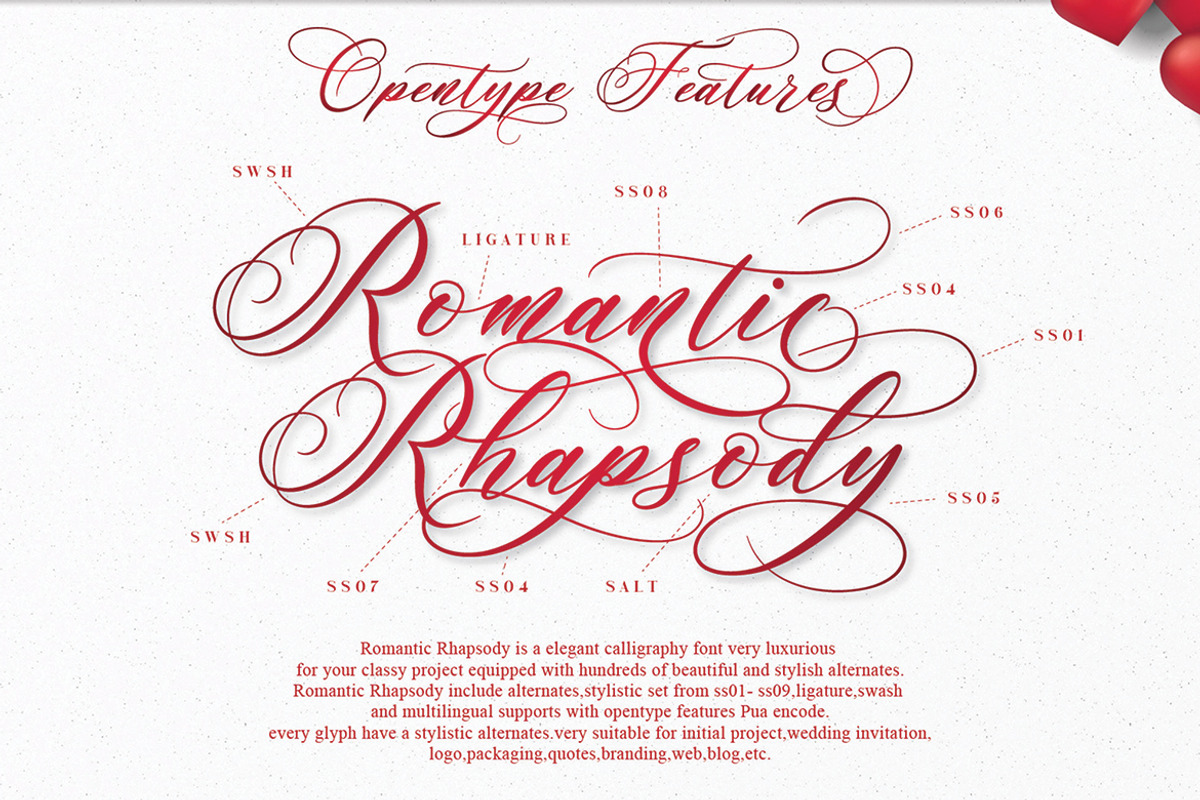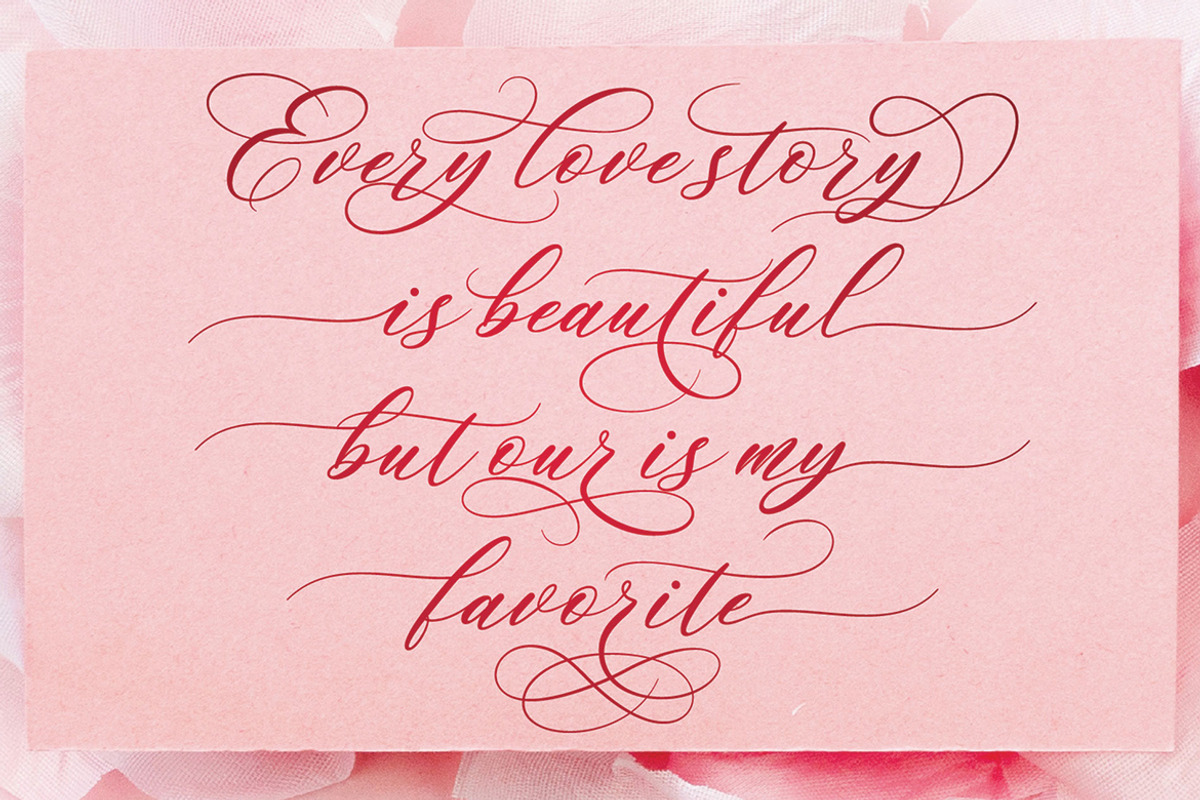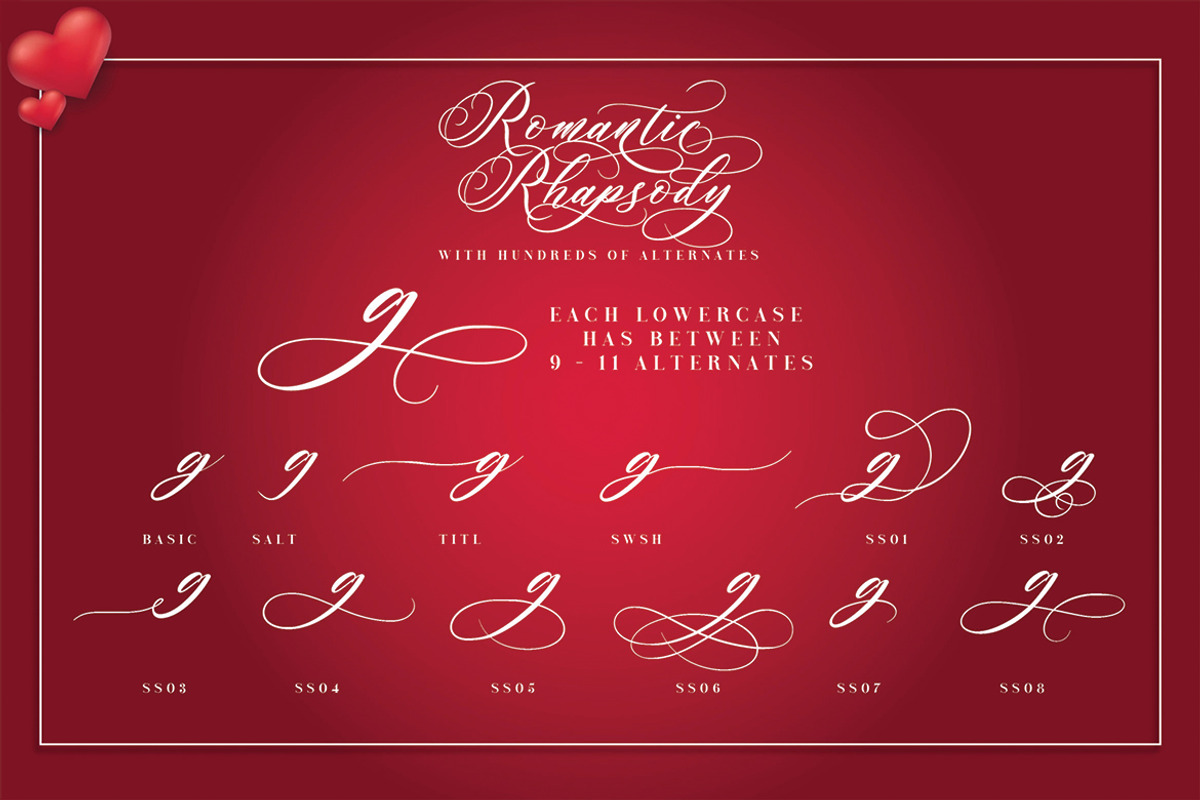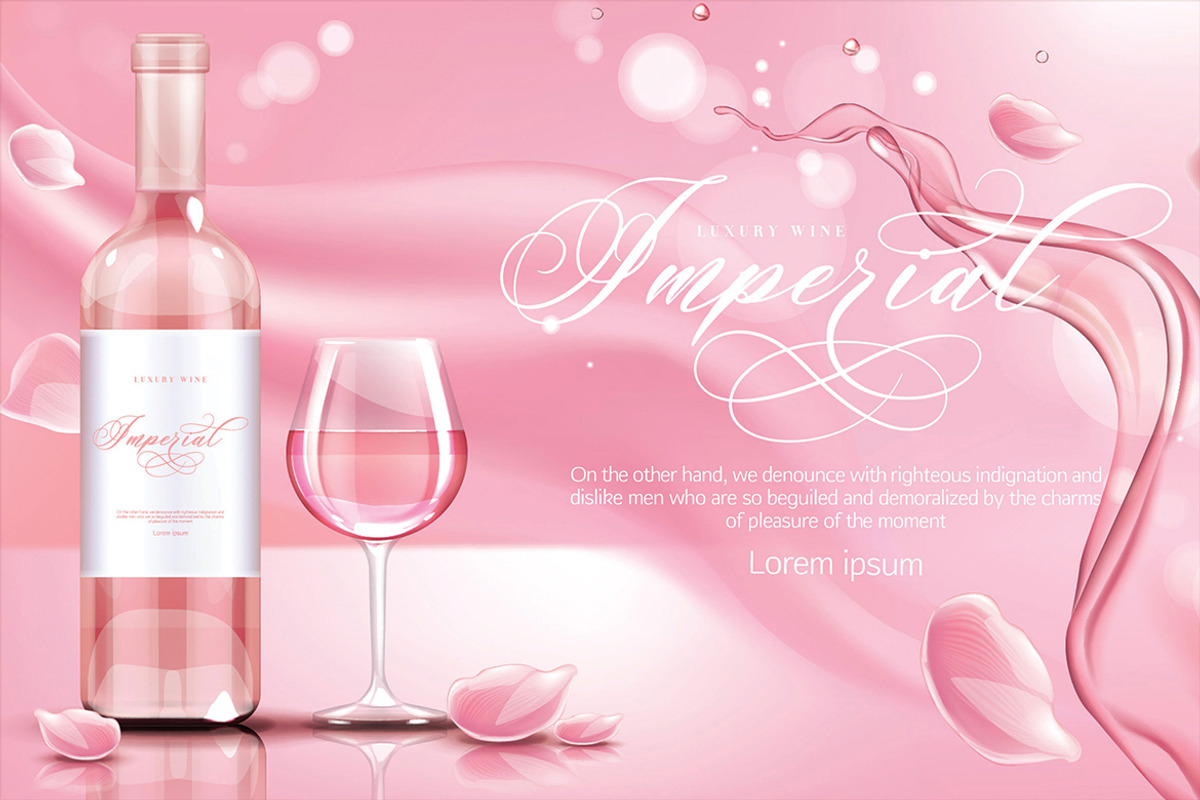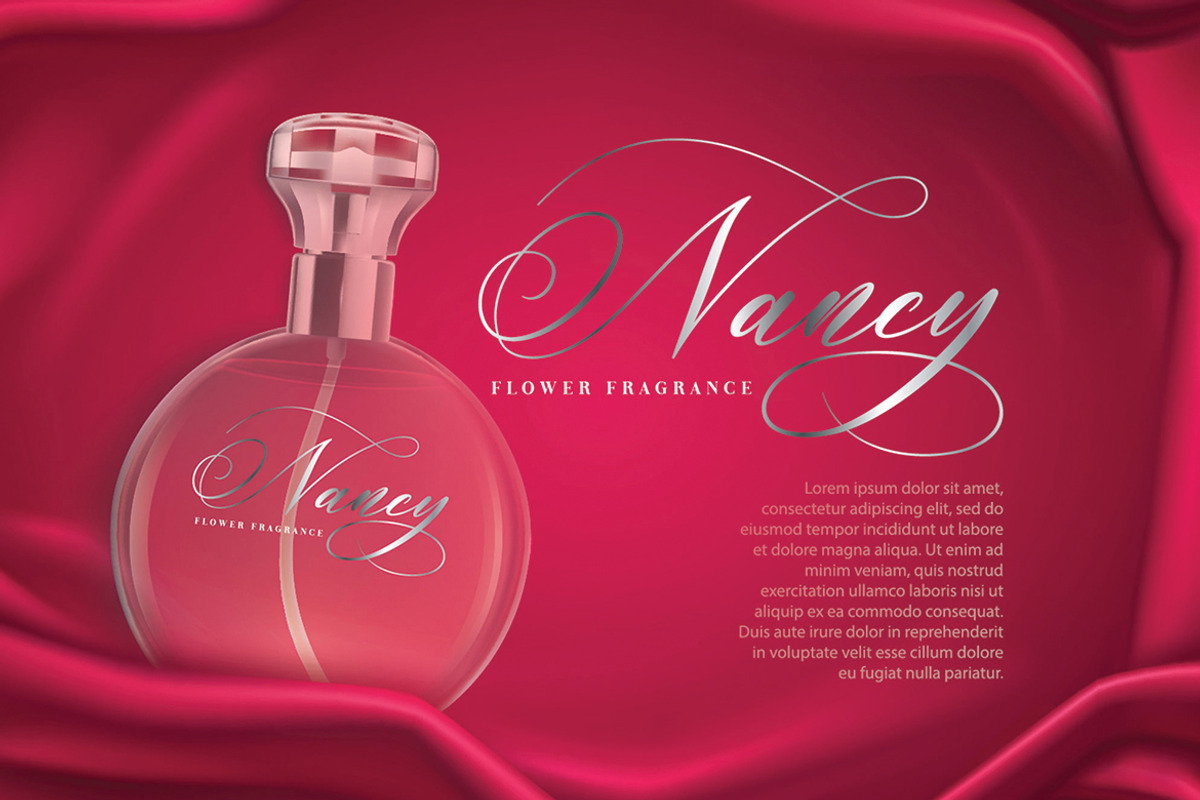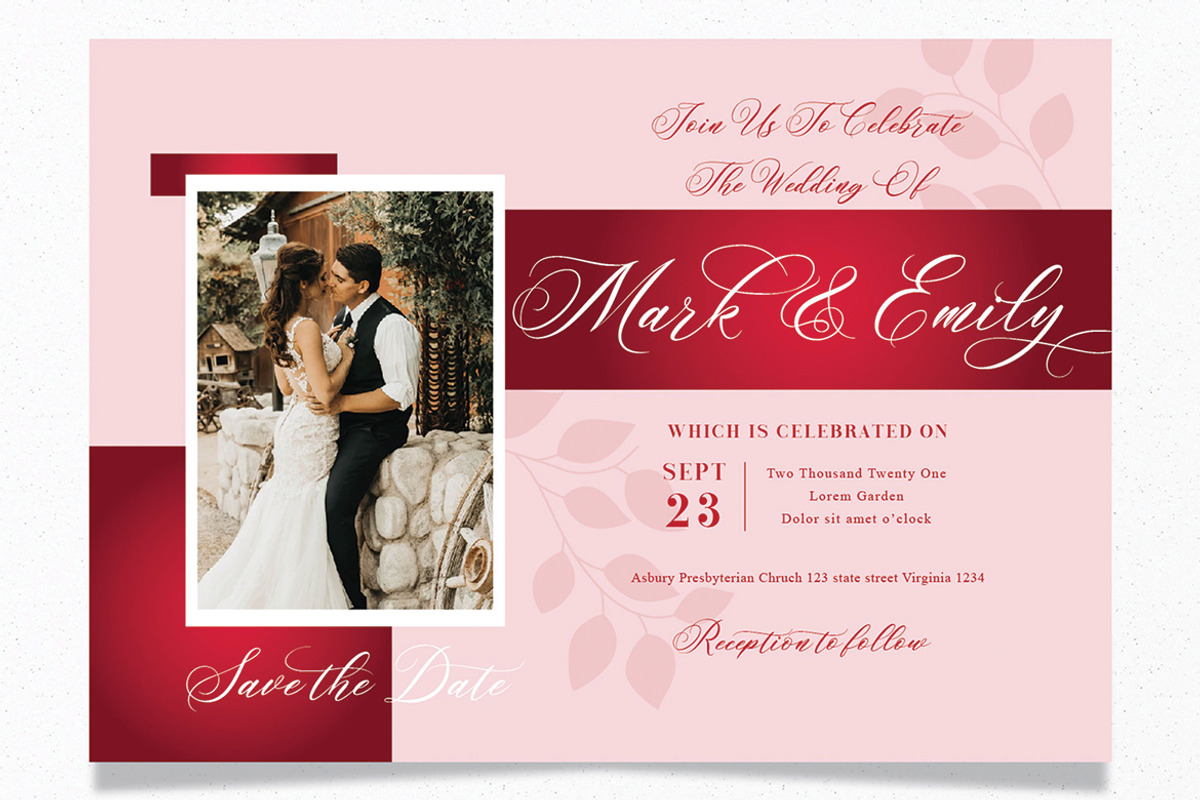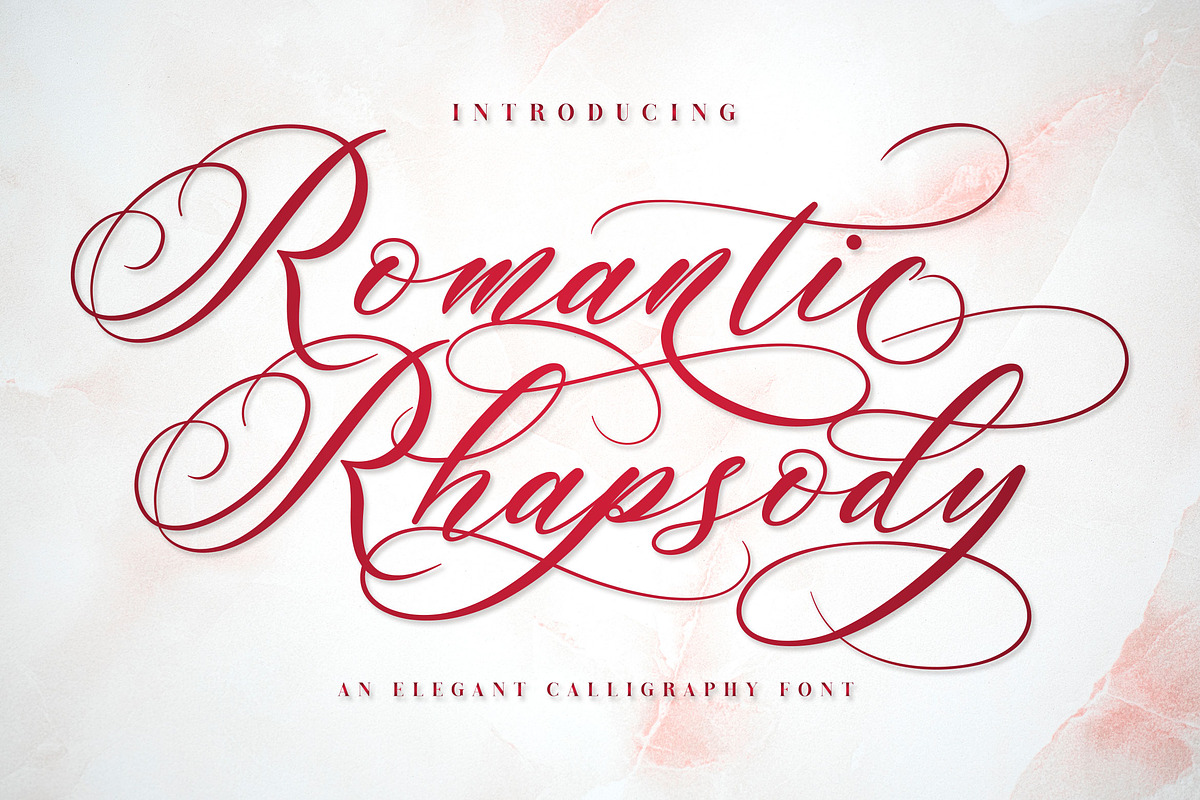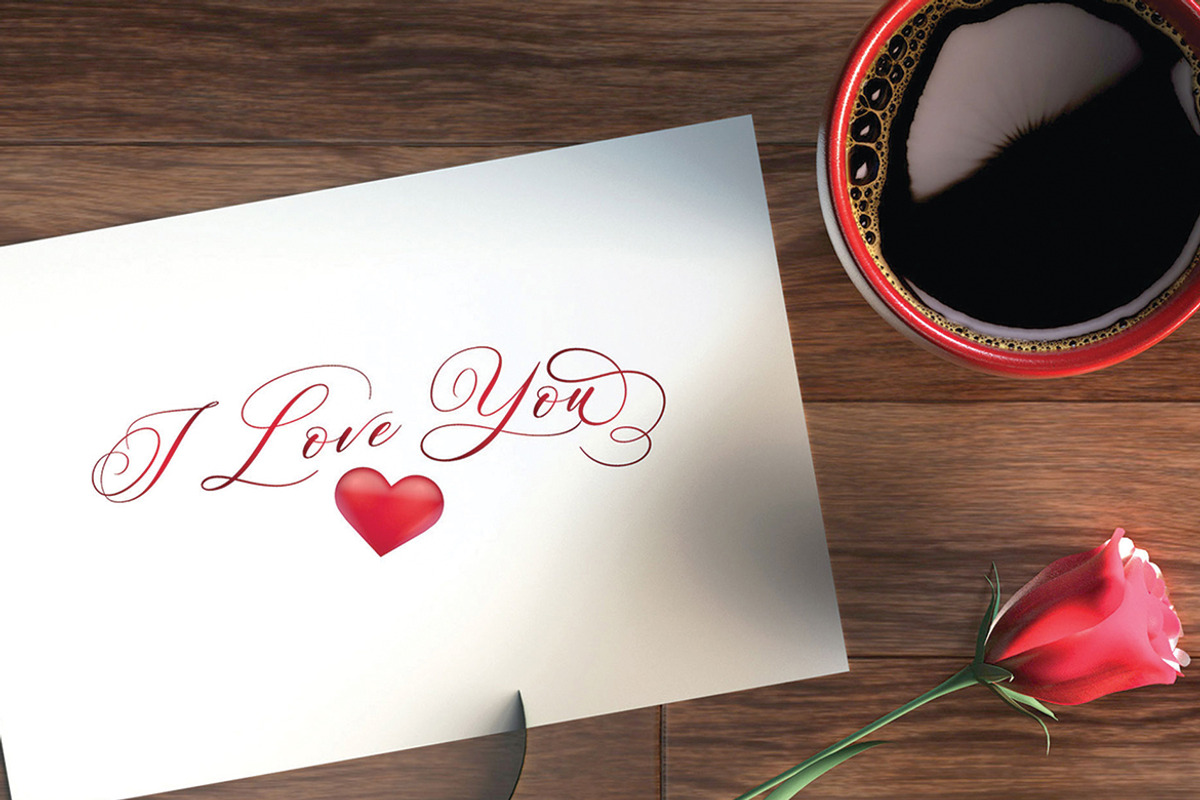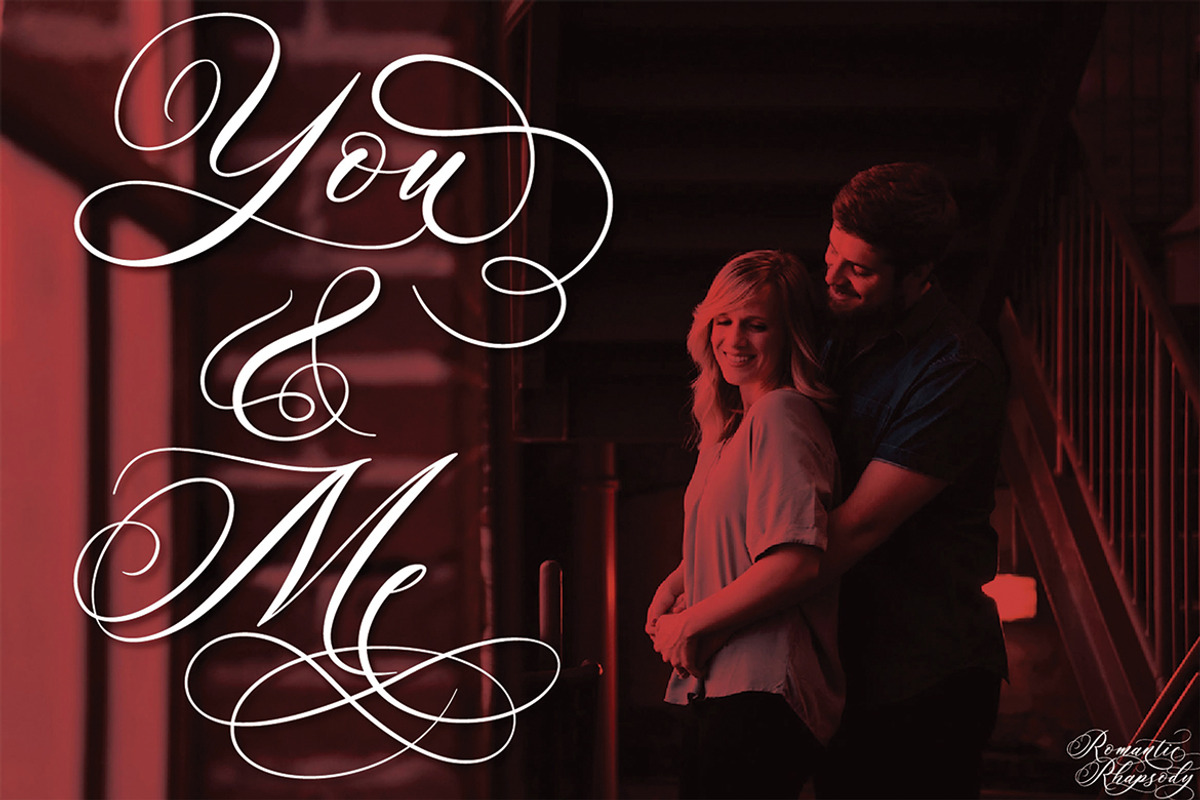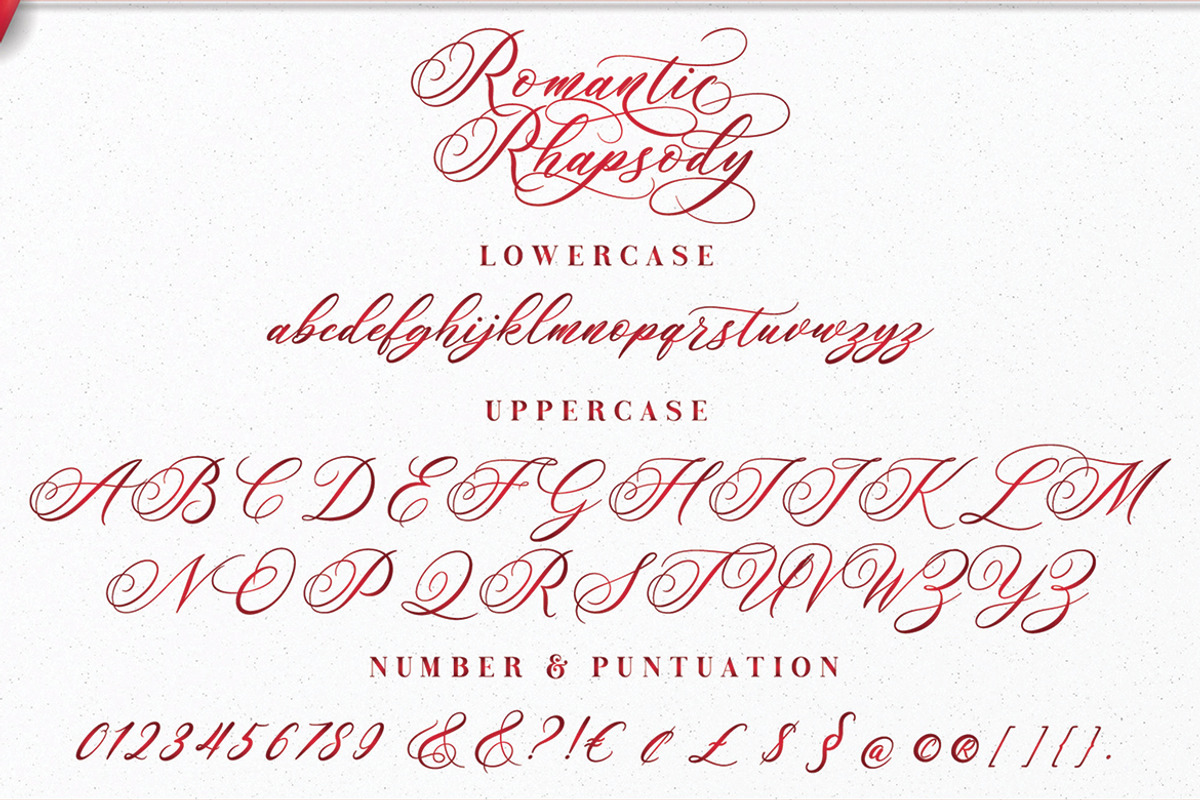
Romantic Rhapsody | Modern Calligrap
Romantic Rhapsody is a elegant calligraphy font very luxurious for your classy project equipped with hundreds of beautiful and stylish alternates.
Romantic Rhapsody include alternates,stylistic set from ss01- ss09,ligature,swash and multilingual supports with opentype features Pua encode.
every glyph have a stylistic alternates.very suitable for initial project,wedding invitation,logo,packaging,quotes,branding,web,blog,etc.